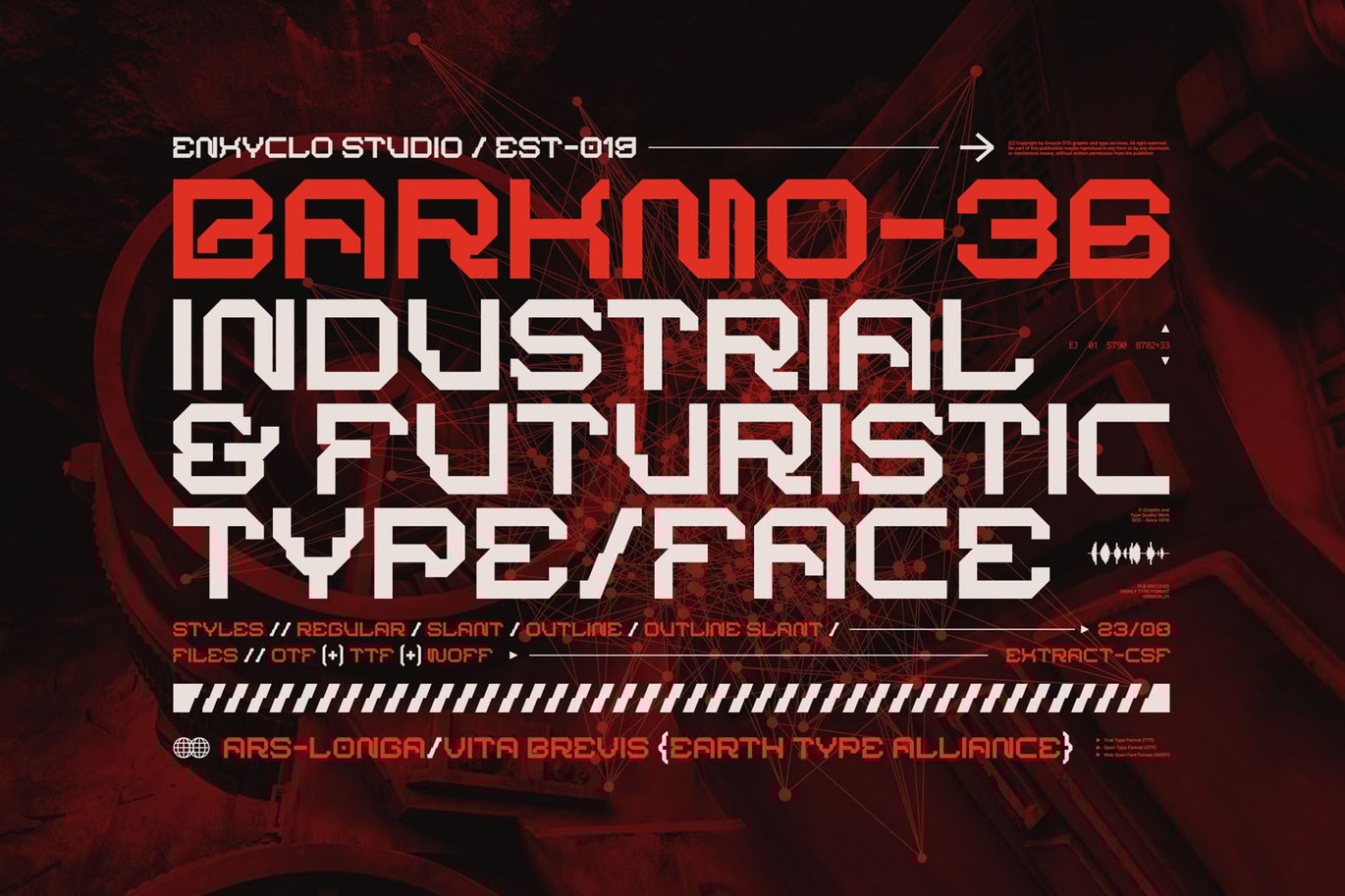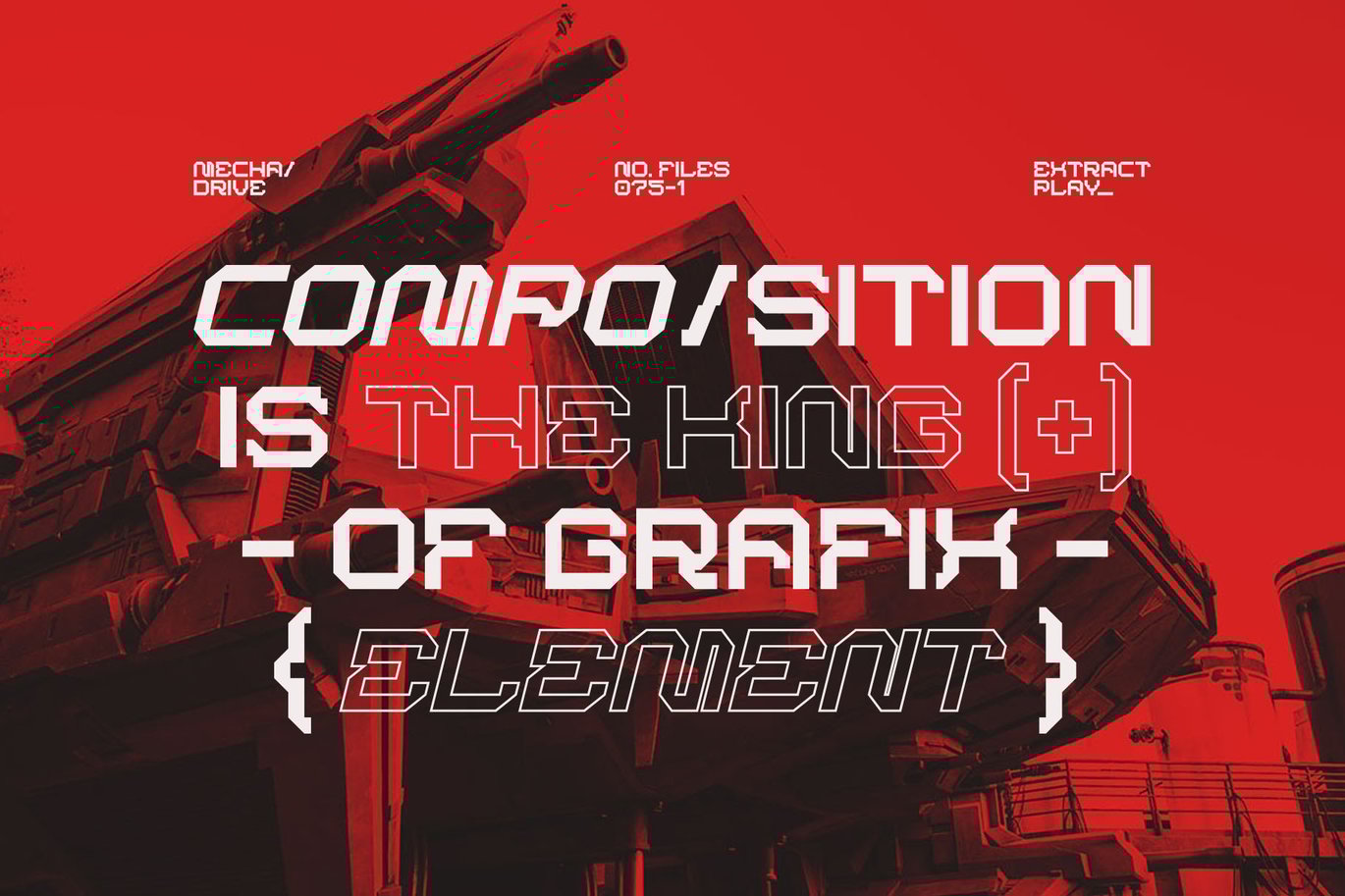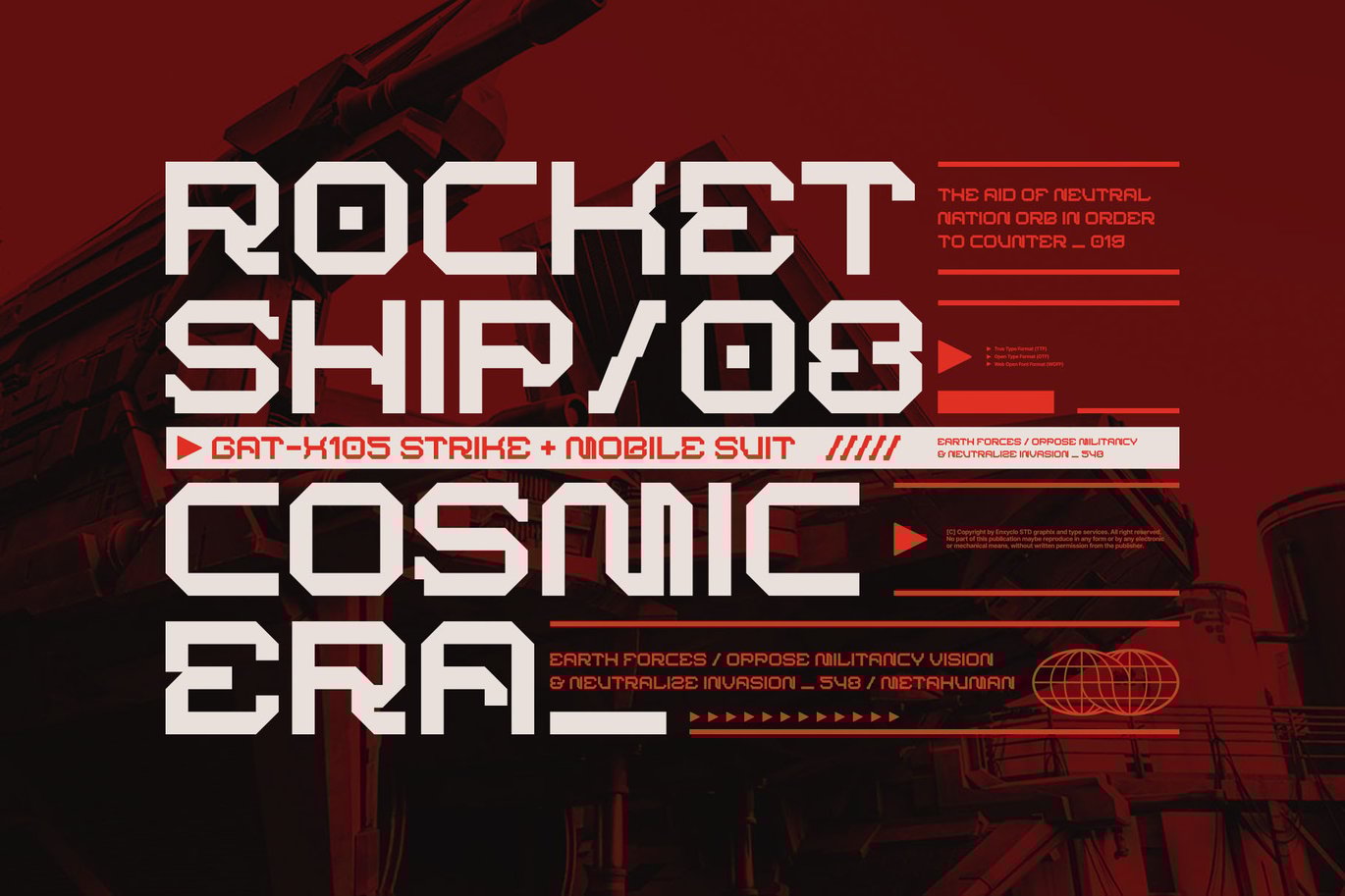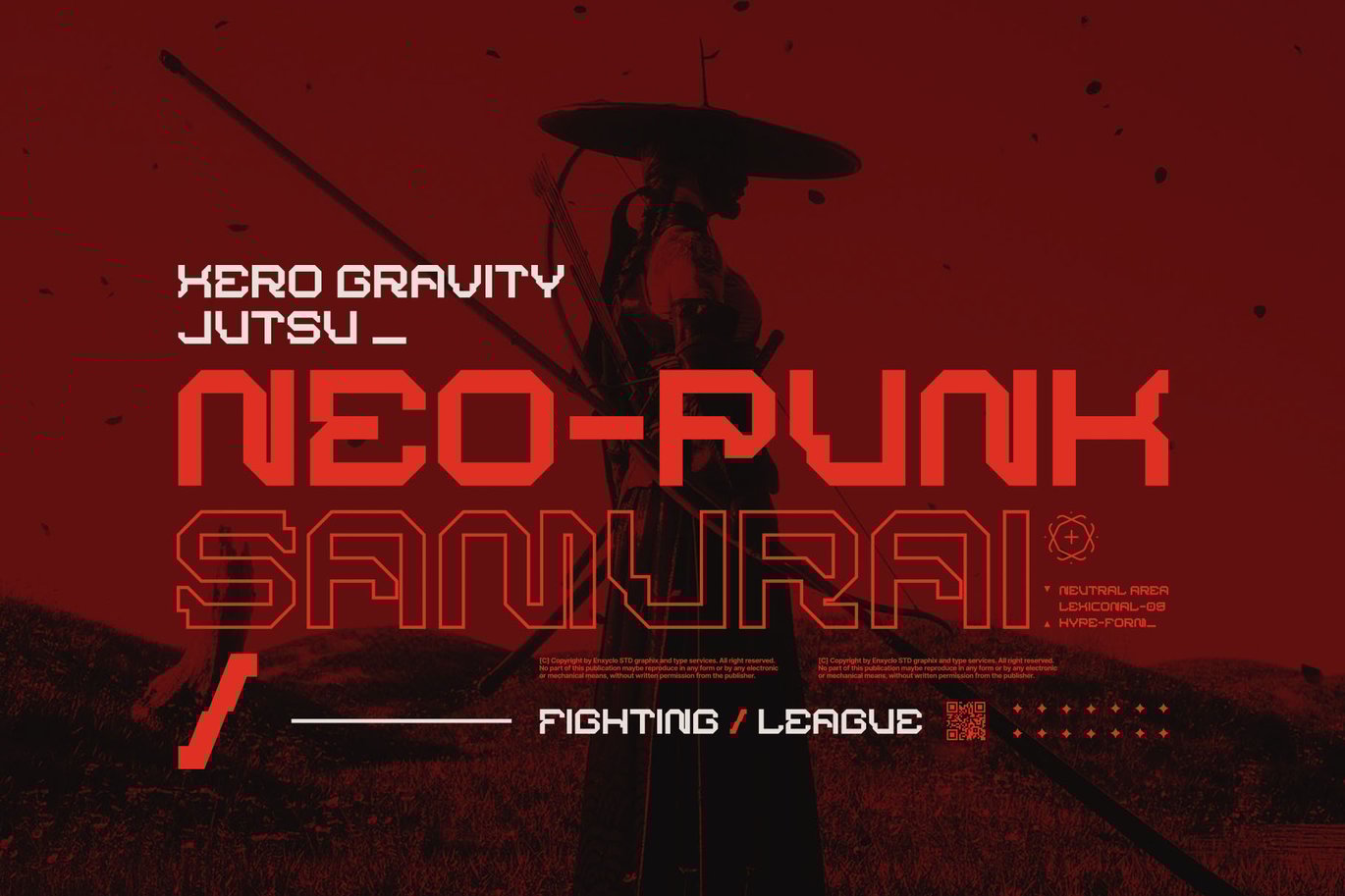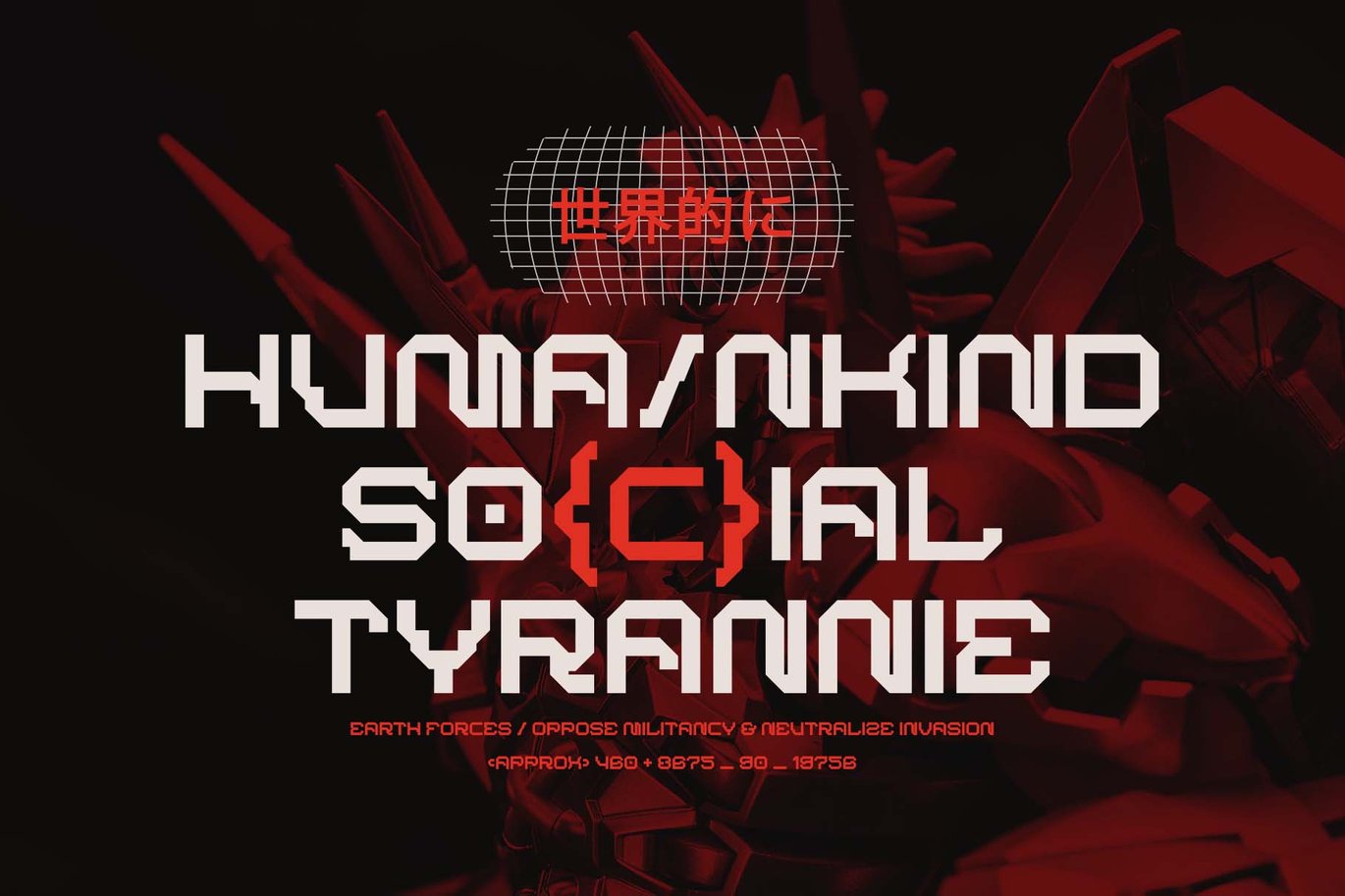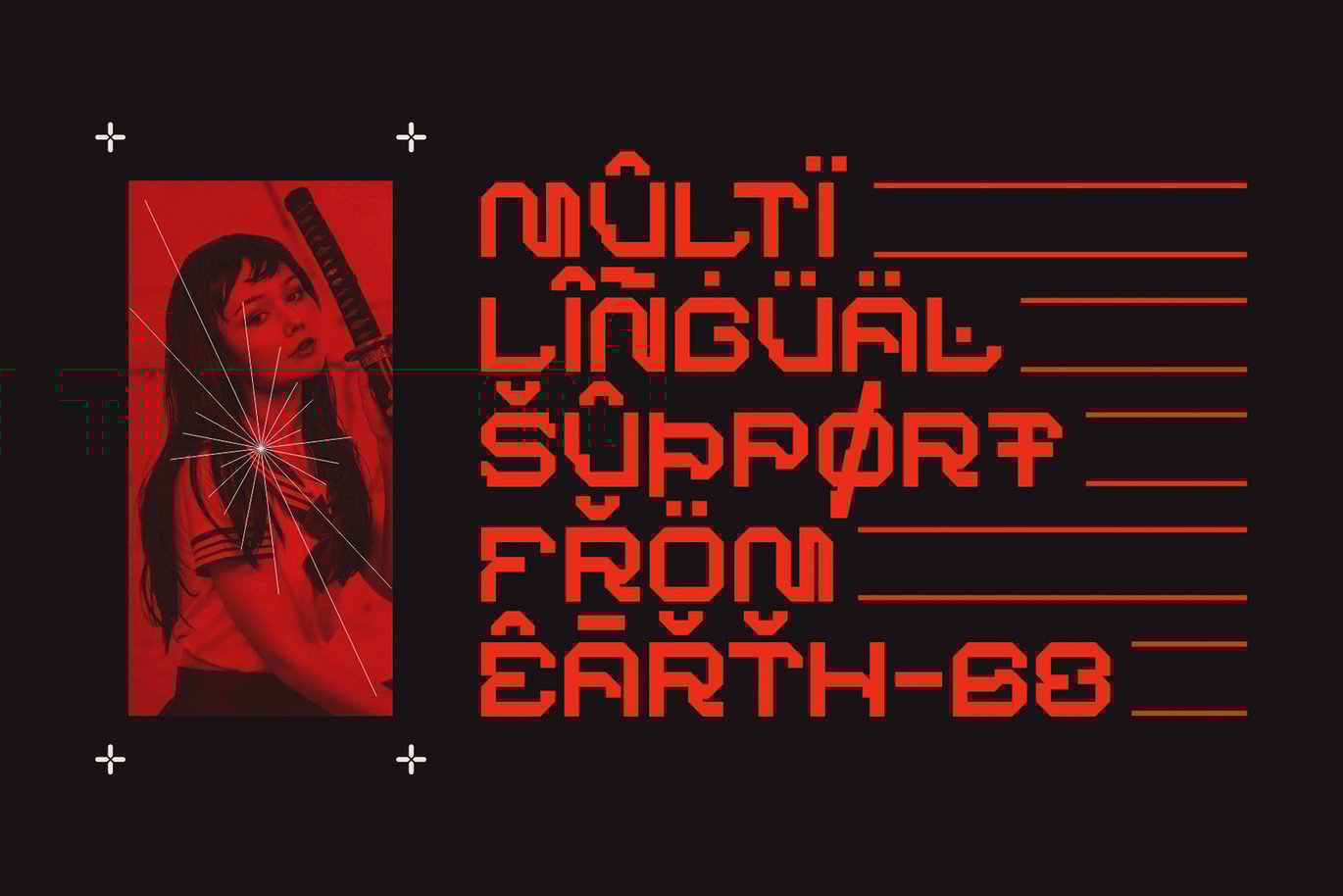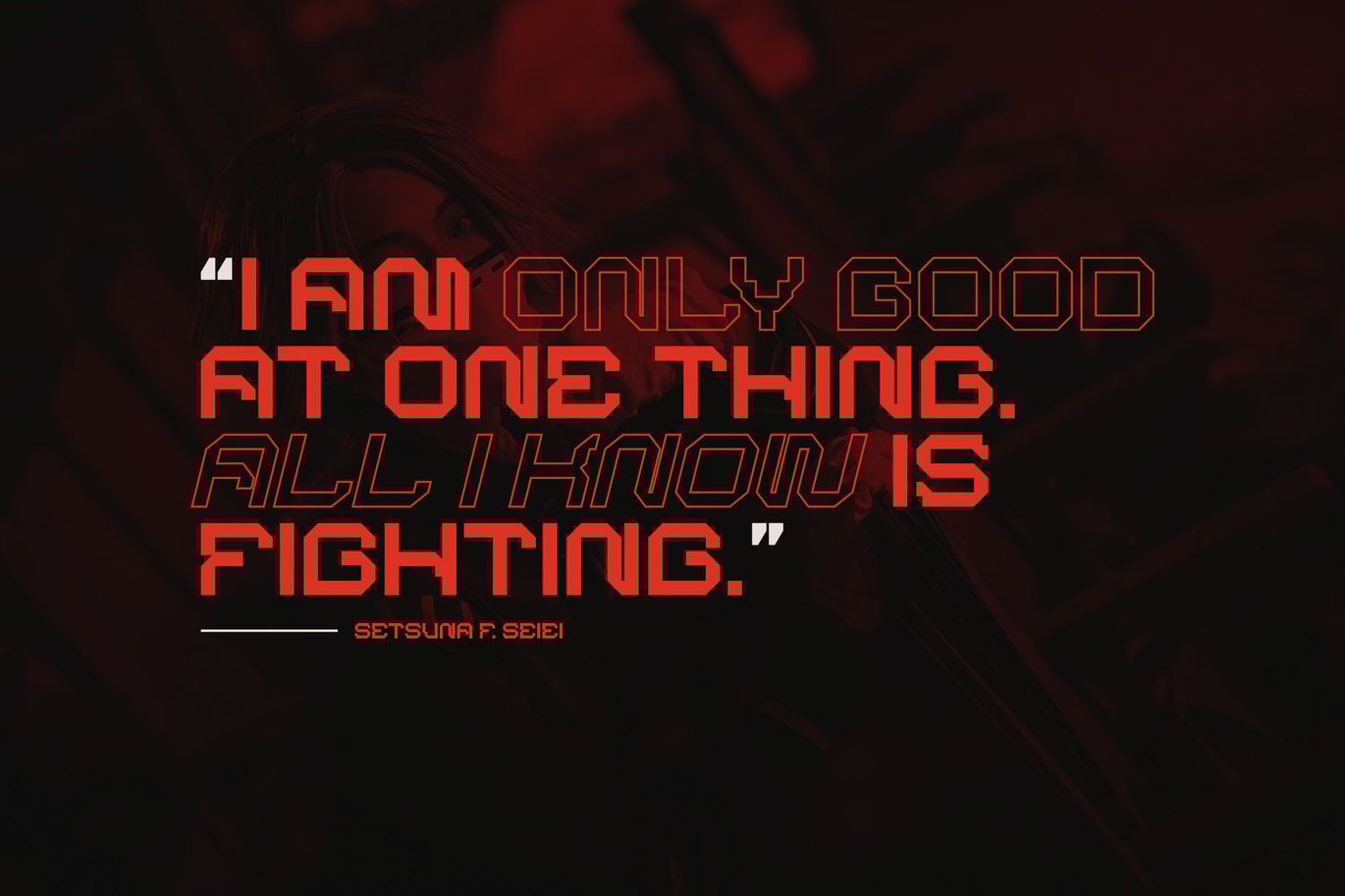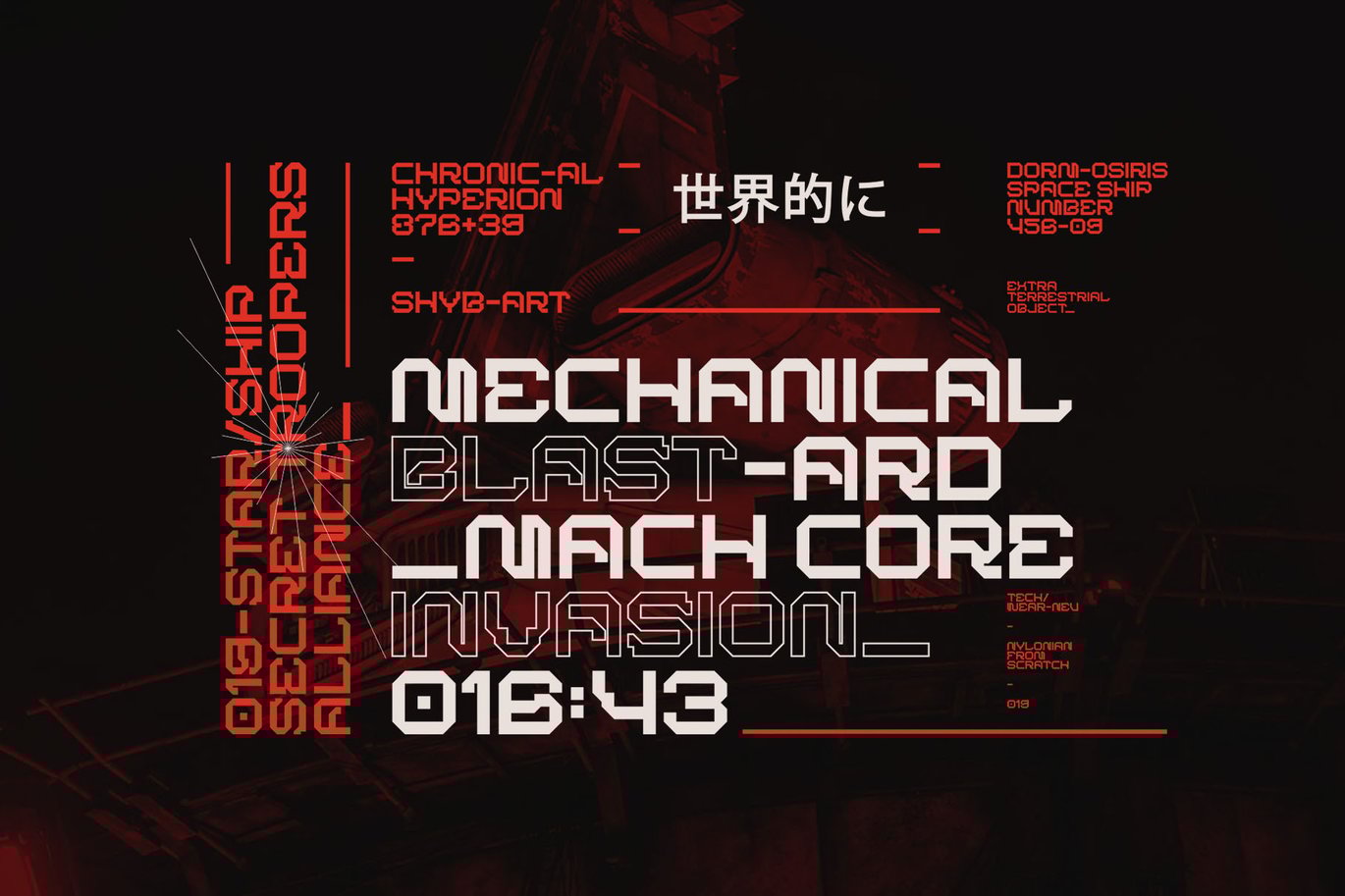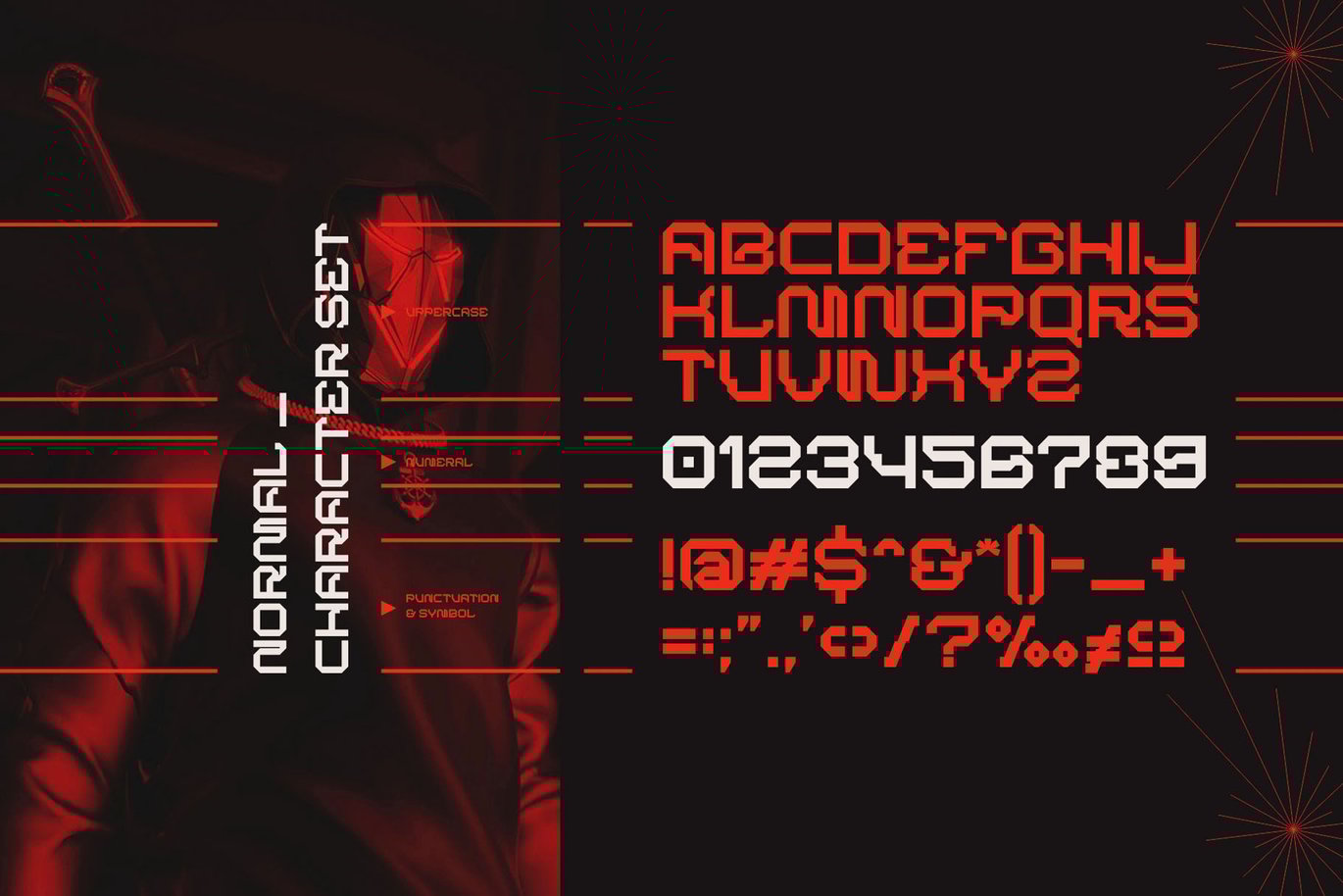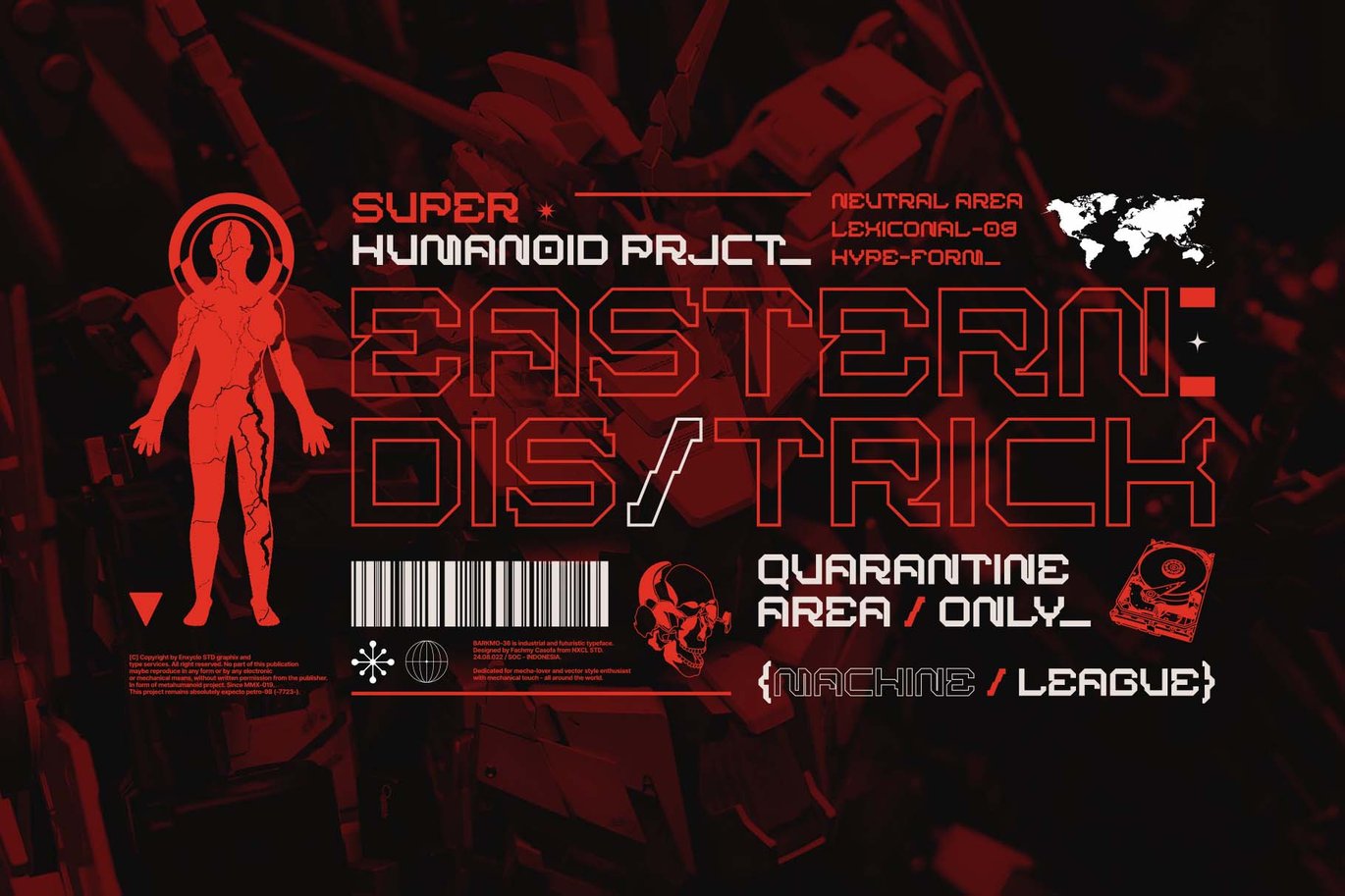
BARKMO-36 | Futuristic Mecha Cyberpunk Font
BARKMO-36 is industrial and futuristic typeface. Highly inspired by industrial and mecha-robotic vibes. The design of typeface will make your project more powerful and inspiring. With this beautiful futuristic and industrial typeface, absolutely you can make your project stand out from the rest. See the previews above to get some inspiration on how to use them.
- 4 Styles: Regular, Slant, Outline, & Outline Slant
- Contains 235 Glyphs for Each Style (Total: 940 Glyphs)
- Uppercase, Numeral, Punctuation & Symbol
- Multilingual support. Support for 45 languages: Asu, Bemba, Bena, Chiga, Cornish, Embu, English, Estonian, Filipino, Ganda, Gusii, Indonesian, Kabuverdianu, Kalenjin, Kamba, Kikuyu, Kinyarwanda, Luo, Luyia, Machame, Makhuwa-Meetto, Makonde, Meru, Morisyen, North, Ndebele, Nyankole, Oromo, Quechua, Rombo, Rundi, Rwa, Samburu, Sangu, Shambala, Shona, Soga, Somali, Swahili, Swiss, German, Taita, Teso, Uzbek (Latin), Volapük, Vunjo, Zulu.